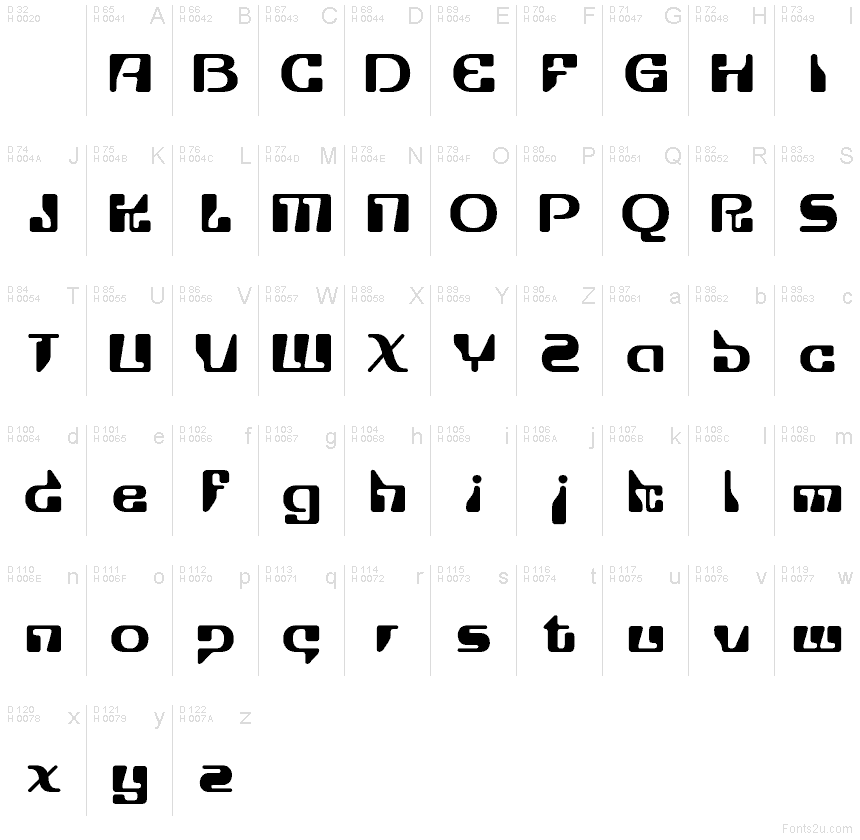
CS Rexa Regular Demo
CS Rexa font by Craft Supply Co. is a free bold retro display font. It stands out with pill-smooth curves and chunky, modular strokes that feel both space-age and friendly. The scooped corners and tight rhythm give headlines a syrupy, flowing weight while keeping edges crisp, so letters lock together like glossy tiles without looking stiff.
Using CS Rexa, titles snap with confident, retro-futurist energy—great for posters, album art, product packaging, game titles, event flyers, and bold brand wordmarks. The generous forms love big sizes and a touch of extra tracking. For body copy nearby, pair this free font with a light, neutral grotesk to let the rounded heft do the talking.